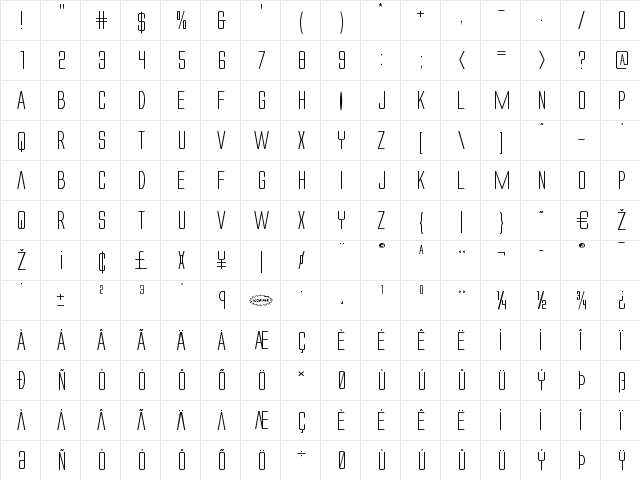
Alien League Expanded Expanded
Design Context for Alien League Expanded Typeface
Alien League Expanded takes a measured approach to typography — its balanced proportions and neutral character make it a reliable workhorse for both digital and print work.